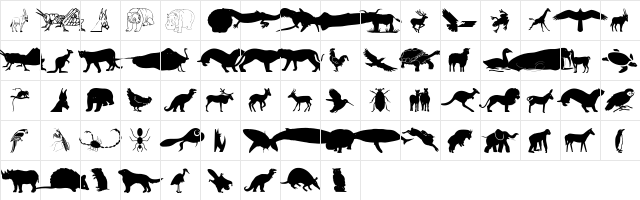
AnimaliSilhouetti Regular
Design Context for AnimaliSilhouetti Typeface
AnimaliSilhouetti is a composed and adaptable typeface that performs quietly and consistently across a wide range of design contexts.